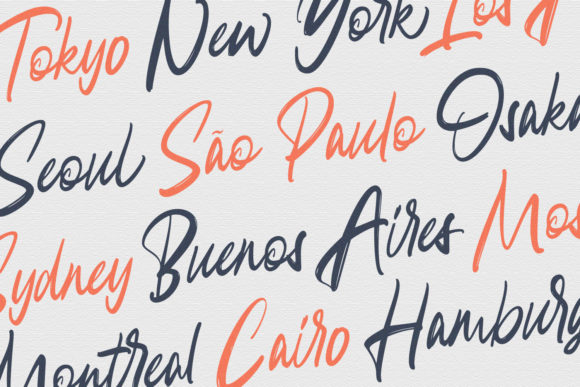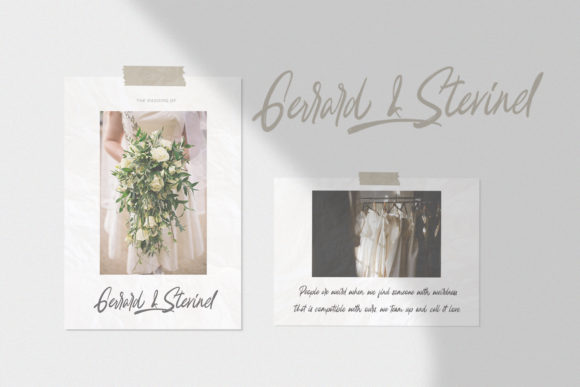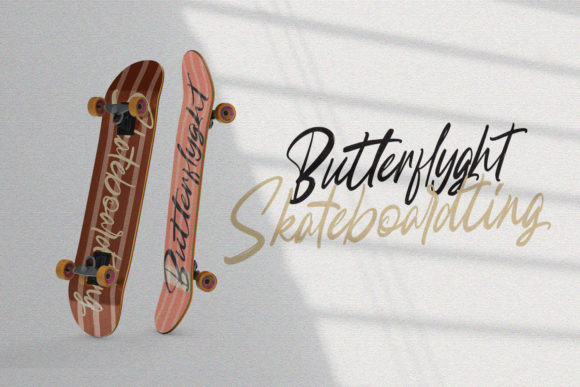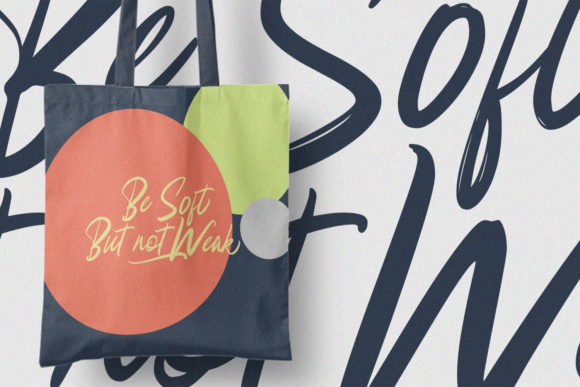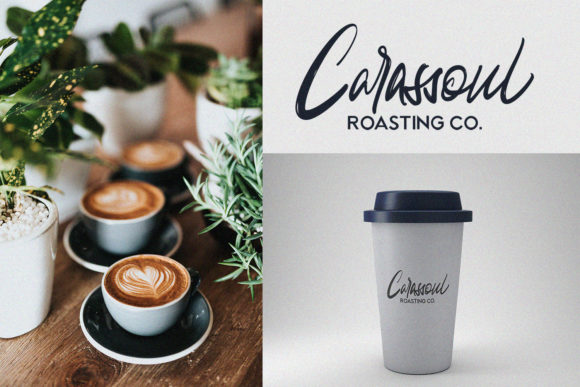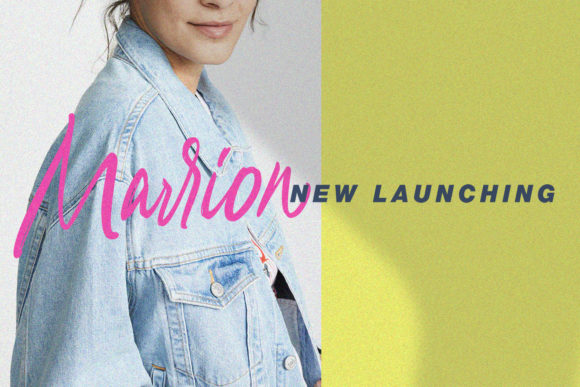
Eberthany Brush Font: Elevate Your Designs with a Cool and Casual Touch
In the world of typography, fonts play a crucial role in conveying the tone and personality of a design. For designers and crafters looking to add a unique and authentic twist to their projects, the Eberthany Brush Font is an excellent choice. This cool and casual brush script boasts a contemporary feel that can instantly elevate your designs and make them stand out.
What Makes Eberthany Brush Font Special?
Eberthany is more than just a font; it’s a design statement. Its brush script style gives it a personal and artistic touch, making it perfect for projects that require a bit of character and whimsy. Whether you’re working on a branding project, a wedding invitation, or a DIY craft, Eberthany can add that special something that makes your design pop.
Key Features of Eberthany Brush Font
- Contemporary Feel: Eberthany has a modern and fresh look that will appeal to designers looking for something current and trendy.
- Cool and Casual: The font’s relaxed and laid-back vibe makes it ideal for designs that need to feel approachable and friendly.
- Authentic Twist: The brush script style gives Eberthany a unique and genuine feel that can add depth and personality to your designs.
- Versatile: Eberthany can be used across a wide range of design projects, from digital graphics to print materials.
How to Use Eberthany Brush Font in Your Designs
Integrating Eberthany into your design workflow is straightforward. Here are a few ideas to get you started:
- Branding and Logos: Use Eberthany to create a distinctive and memorable brand identity that stands out from the crowd.
- Wedding and Event Invitations: Add a touch of elegance and whimsy to your wedding or event invitations with Eberthany’s beautiful brush script.
- DIY Crafts: Whether you’re making personalized gifts or decorations, Eberthany can add a professional and stylish touch to your DIY projects.
- Digital Graphics: Use Eberthany in your social media graphics, blog headers, or website designs to add a personal and artistic touch.
Tips for Getting the Most Out of Eberthany Brush Font
To truly make Eberthany shine in your designs, consider the following tips:
- Experiment with Colors: The brush script style of Eberthany lends itself well to bold and vibrant colors. Don’t be afraid to experiment and find the perfect color combination for your design.
- Play with Sizes: Eberthany looks great in various sizes. Try using it in both large and small sizes to create visual interest and hierarchy in your designs.
- Combine with Other Fonts: Don’t be afraid to pair Eberthany with other fonts to create a unique and harmonious typography combination.
Eberthany Brush Font is a versatile and stylish addition to any designer’s toolkit. Its cool and casual vibe, combined with its contemporary feel, makes it the perfect choice for a wide range of design projects. Whether you’re a professional designer or a crafty DIY enthusiast, Eberthany can help you add an authentic twist to your designs and make them truly stand out.